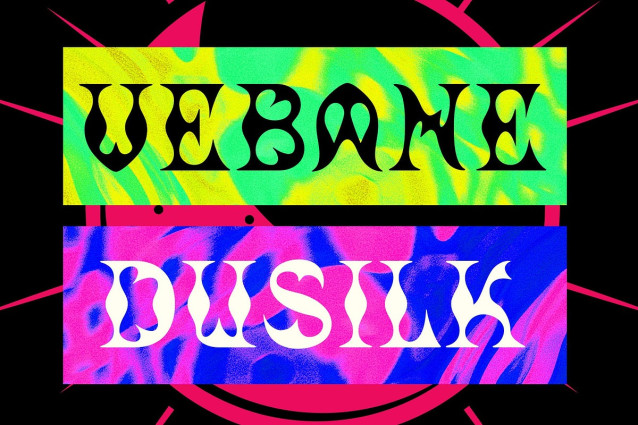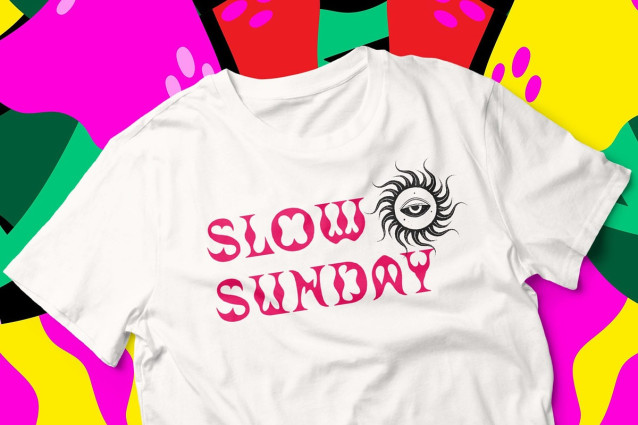
CS Chimera Drawn Font is a display font bursting with psychedelic energy and a funky, free-spirited attitude. Its fluid, wavy letterforms capture the essence of retro psychedelia while maintaining a unique and modern edge. This font brings movement and rhythm to any design, making it ideal for creatives looking to make a bold and unconventional statement.
Drawn Texture for Artistic Depth The hand-drawn effect adds a raw, expressive texture to Chimera’s already vibrant form. This subtle layering gives the font a crafted, organic quality that enhances its personality and makes it stand out in visual storytelling. Each letter feels alive—adding depth, individuality, and a tactile quality that digital perfection often lacks.
Perfect for Music and Creative Posters Whether you’re designing posters for music festivals, experimental art shows, or expressive album covers, this psychedelic font brings the energy. Its unconventional style makes it ideal for artistic projects that embrace individuality, creativity, and flair. It demands attention and evokes curiosity, making every word a visual experience.
Expressive Style for Standout Design With its bold shapes, drawn texture, and playful rhythm, this display font is more than a font—it’s an artistic voice. Use it to elevate branding, packaging, or editorial layouts that seek a balance between expressive character and funky visual storytelling.